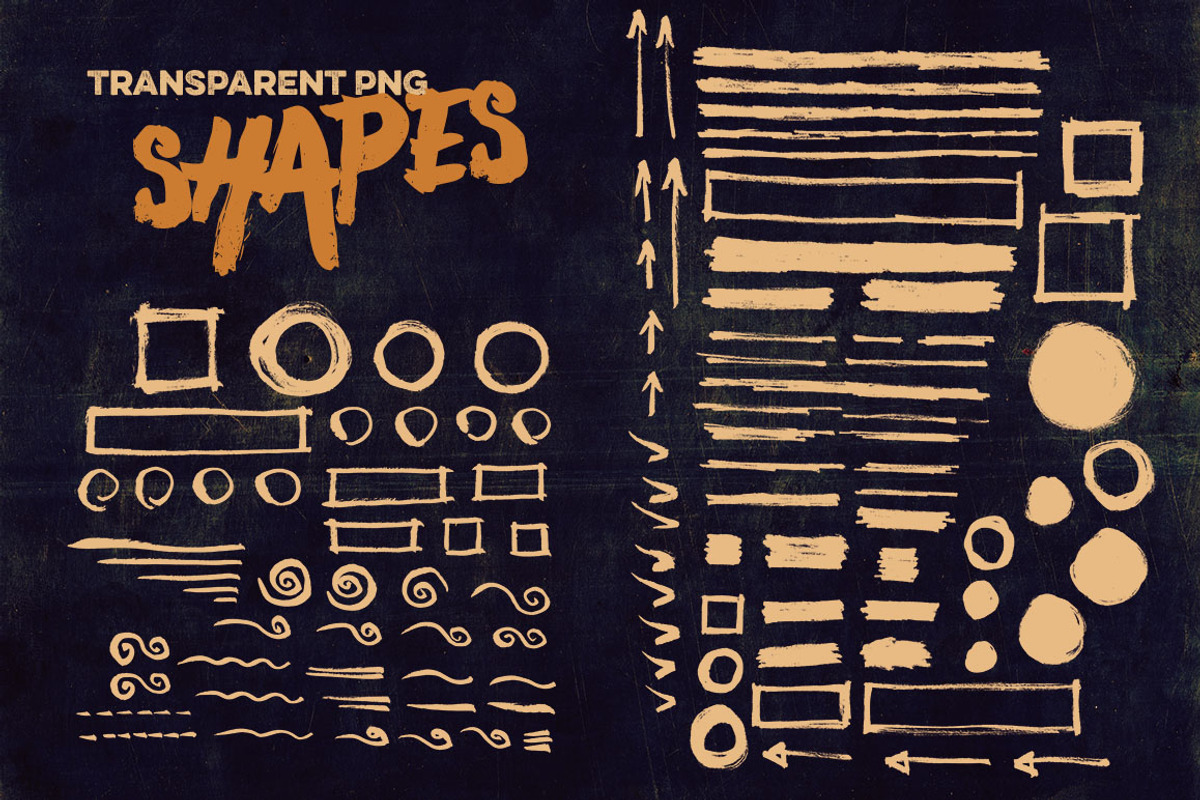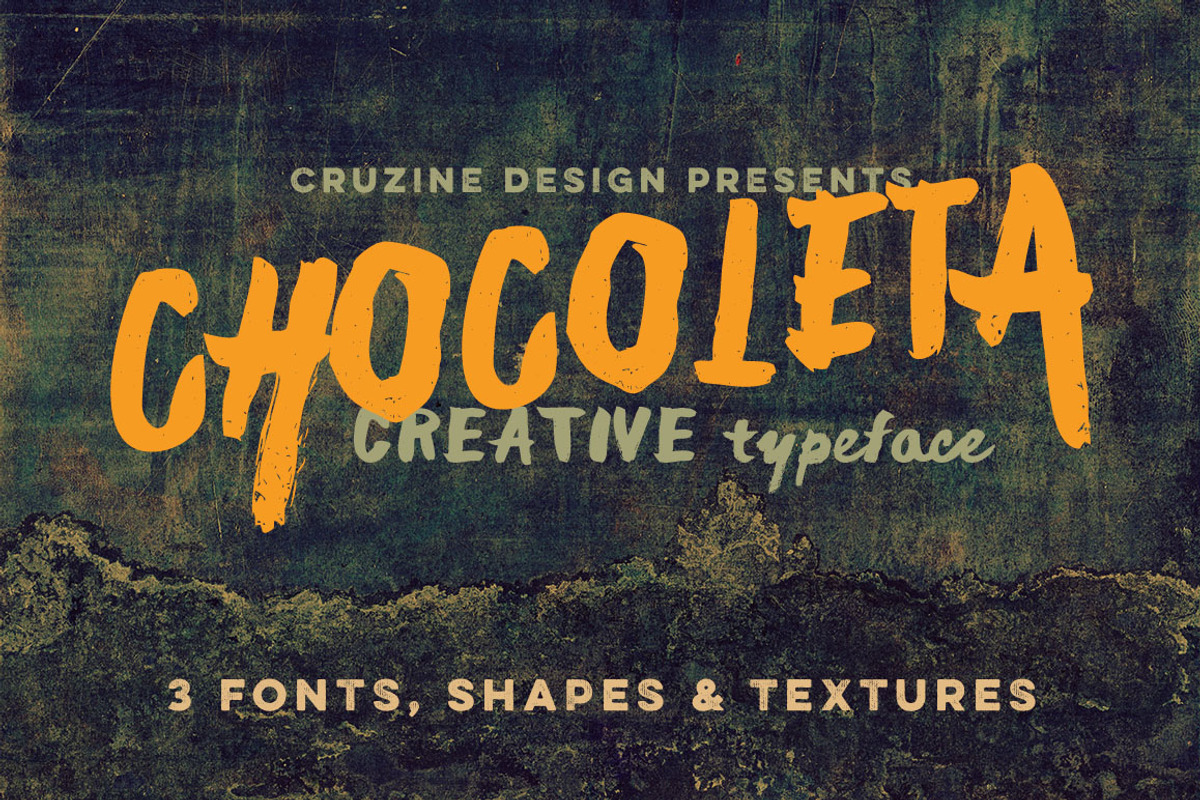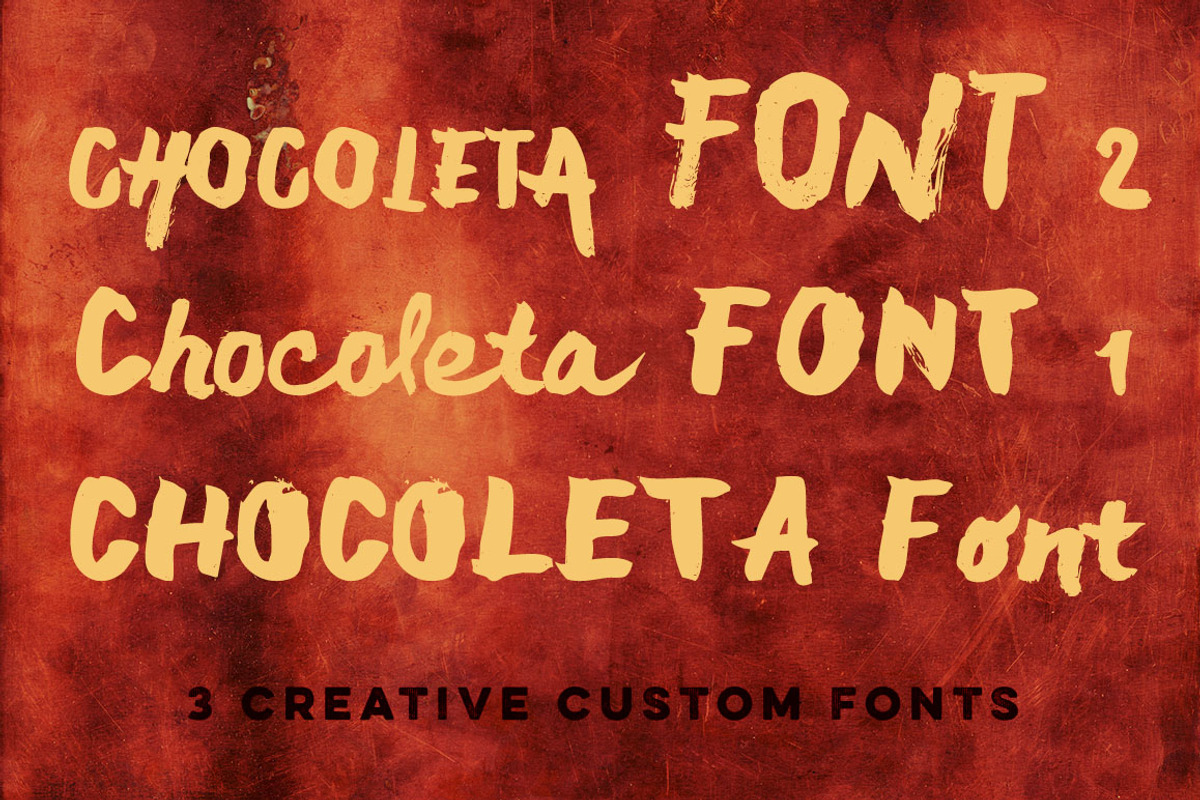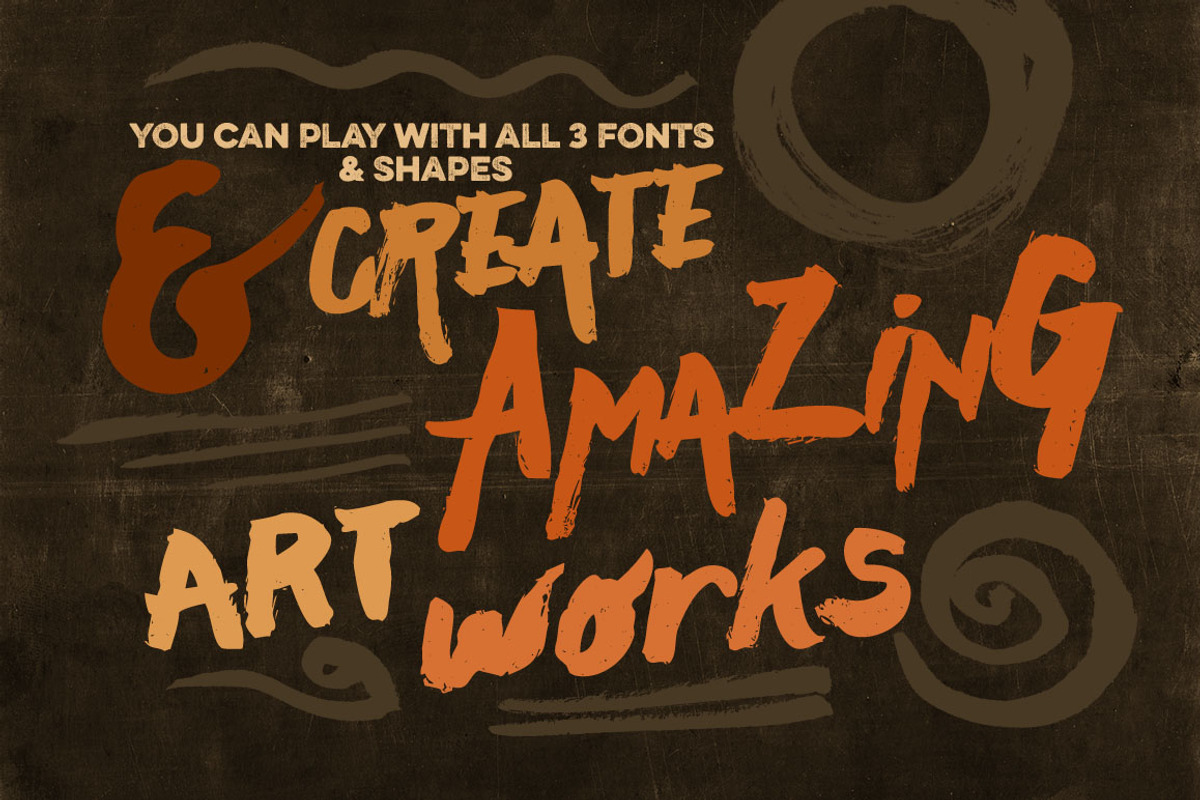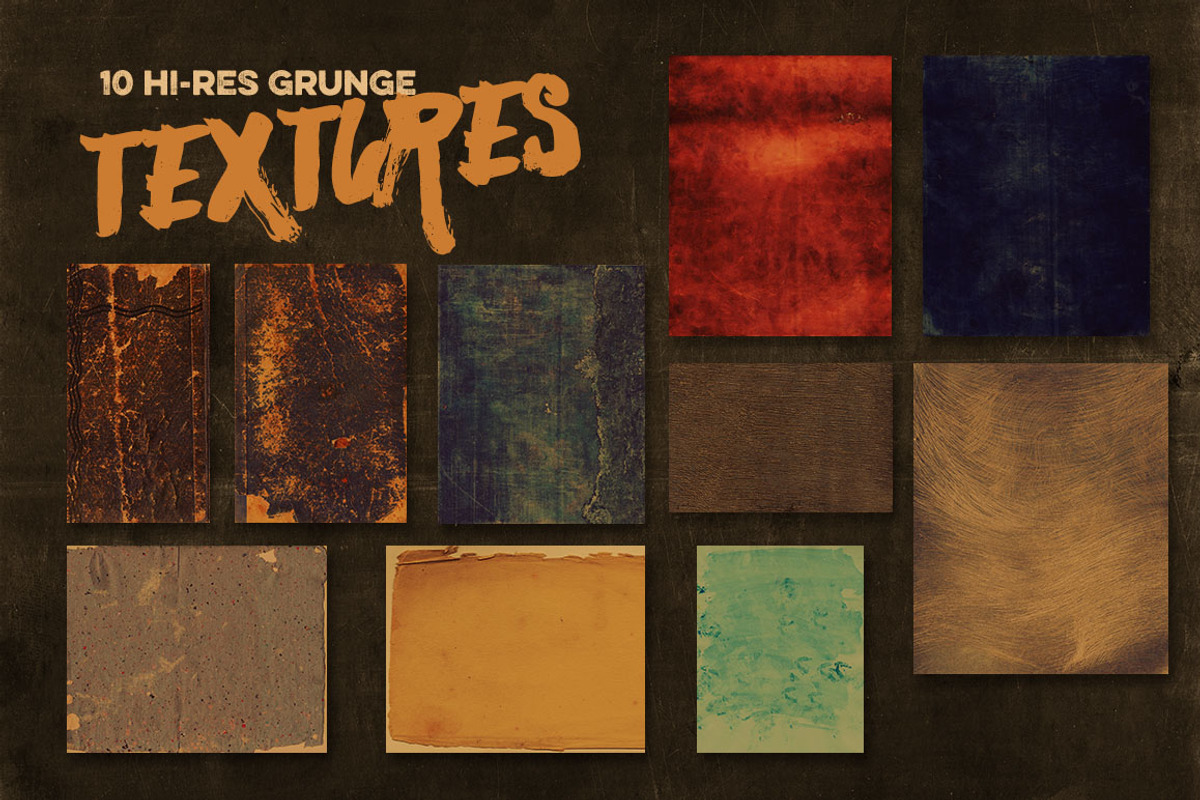
Chocoleta Typeface
Chocoleta Typeface by Cruzine is a font selected for branding, posters, packaging, typography.
Why Chocoleta Typeface is worth a look
Chocoleta Typeface by Cruzine fits naturally into Branding, posters, packaging, typography.